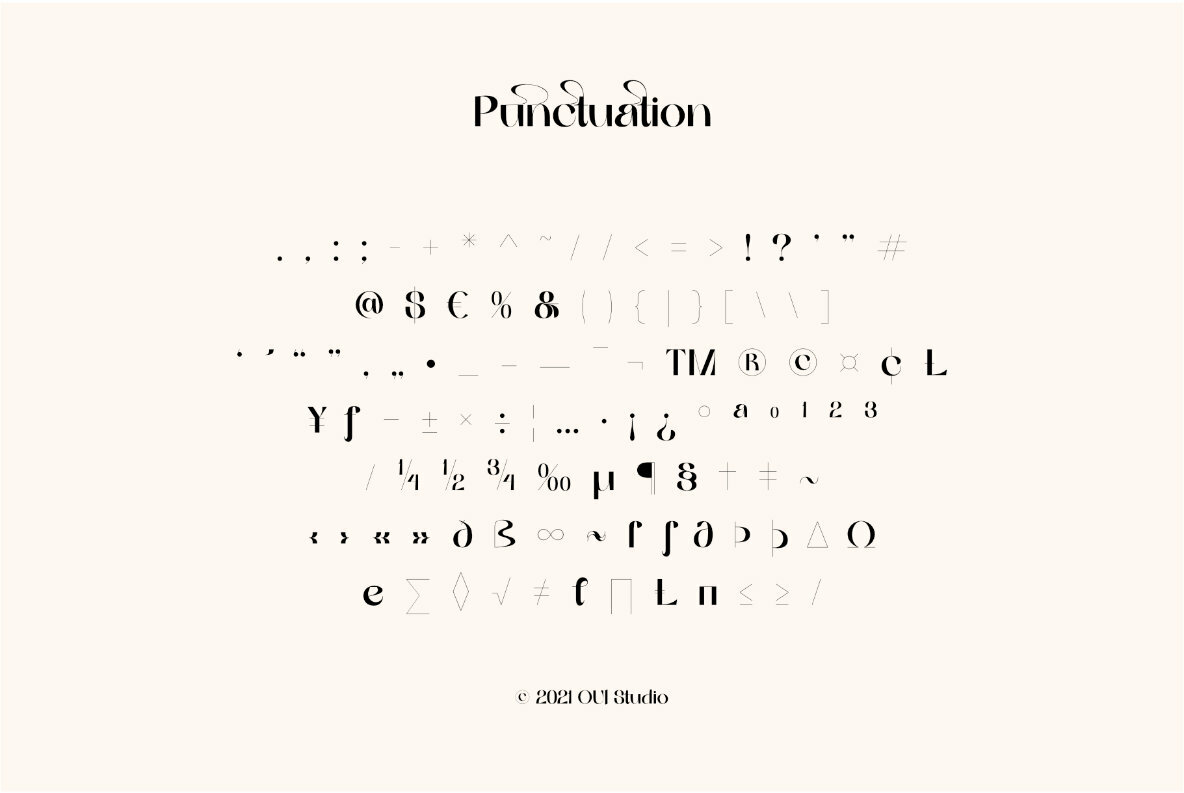
Quessera Font
OUI Quessera Regular
Quessera by Oui Studio introduces an elegant typeface that marries playfulness with sophistication. This font is a treasure trove of stylistic options, boasting a complete set of uppercase characters along with numerous unique ligatures. These features provide ample choices to customize your work, ensuring it stands out with stunning effect.Quessera: Playful Elegance in Typography